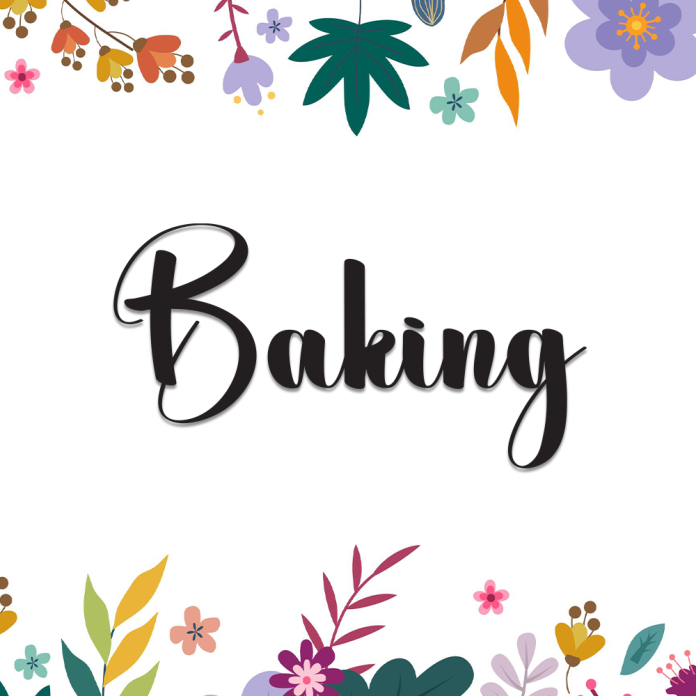
Baking is a warm, handwritten font that evokes the cozy feeling of home-baked treats and handwritten recipes. With its smooth curves and gentle strokes, it's perfect for bakery logos, food packaging, café menus, quote prints, and any design that needs a personal and inviting touch.
Natural handwritten style with a friendly tone
Perfect for baking themes, cooking books, and sweet product branding
Easy to pair with illustrations and pastel color palettes
Add a dash of sweetness and a sprinkle of charm to your designs with the heartfelt style of Baking!